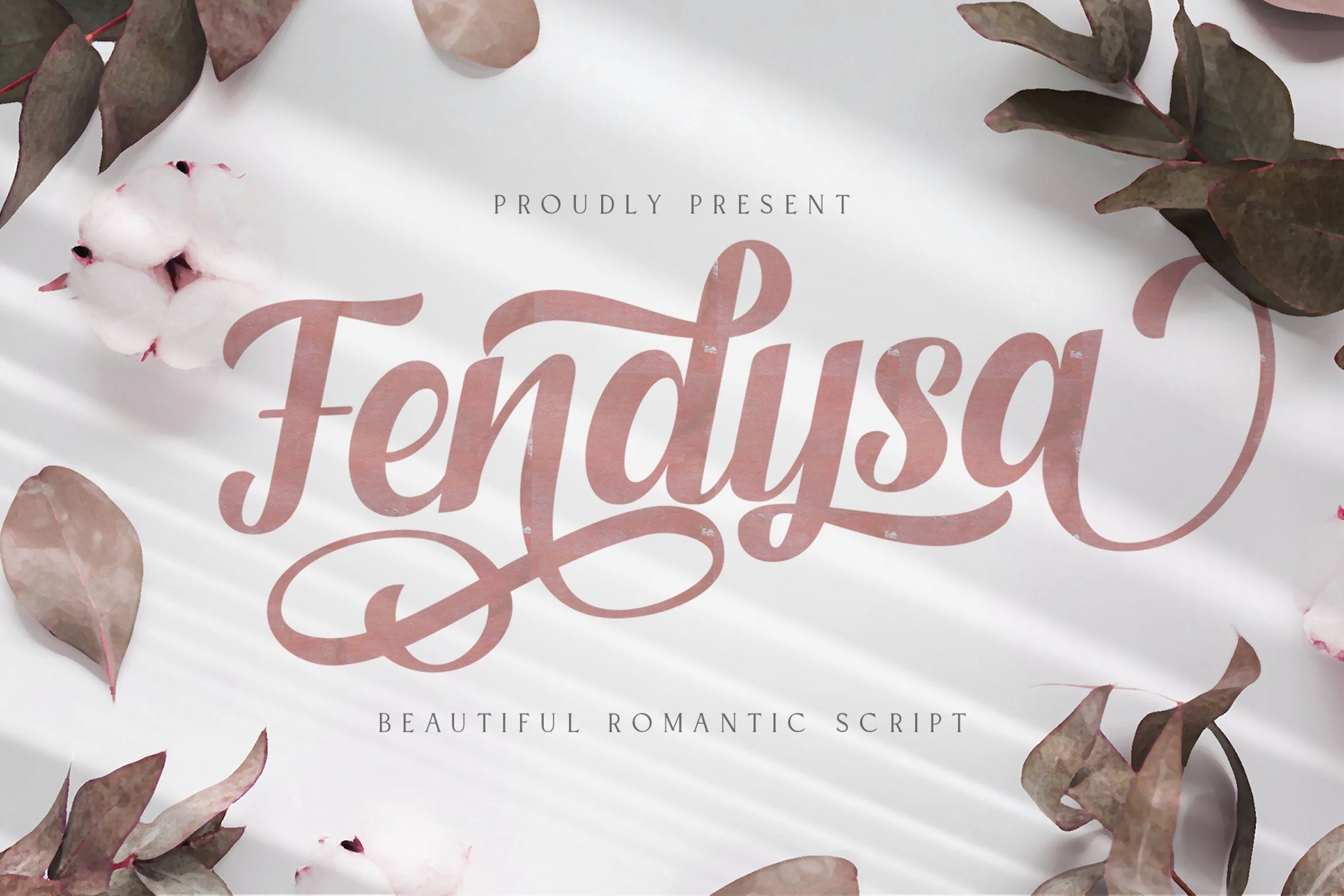
Fendysa - Beautiful Romantic Calligraphy Script Font
Introducing Fendysa - Beautiful Romantic Calligraphy Script Font
Fendysa is a script font with beautiful romantic calligraphy style. Whether you’re looking for fonts for calligraphy scripts for DIY projects, Styll Love will turn any creative idea into a true piece of art! This font is PUA encoded which means you can access all of the cute glyphs with ease! It also features a wealth of special features including stylistic alternate glyphs and ligatures.
Introducing Fendysa - Beautiful Romantic Calligraphy Script Font
Fendysa is a script font with beautiful romantic calligraphy style. Whether you’re looking for fonts for calligraphy scripts for DIY projects, Styll Love will turn any creative idea into a true piece of art! This font is PUA encoded which means you can access all of the cute glyphs with ease! It also features a wealth of special features including stylistic alternate glyphs and ligatures.